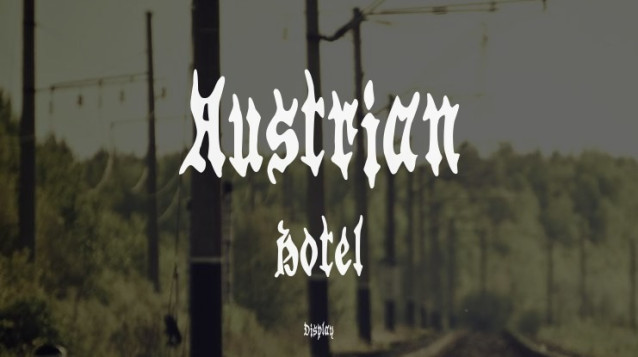
Austrian Hotel Font
Austrian Hotel Font is a Gothic Metal blackletter font. Use this strong and impressive typeface to add cool vibes to t-shirts, album covers, magazines, or anything that needs to stand out.